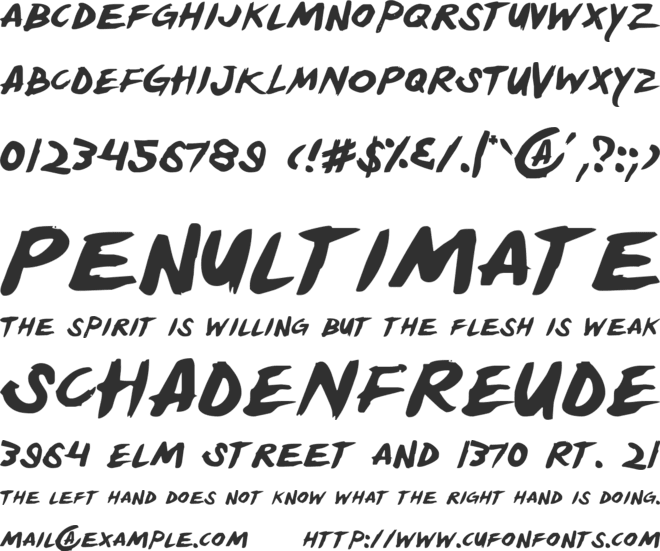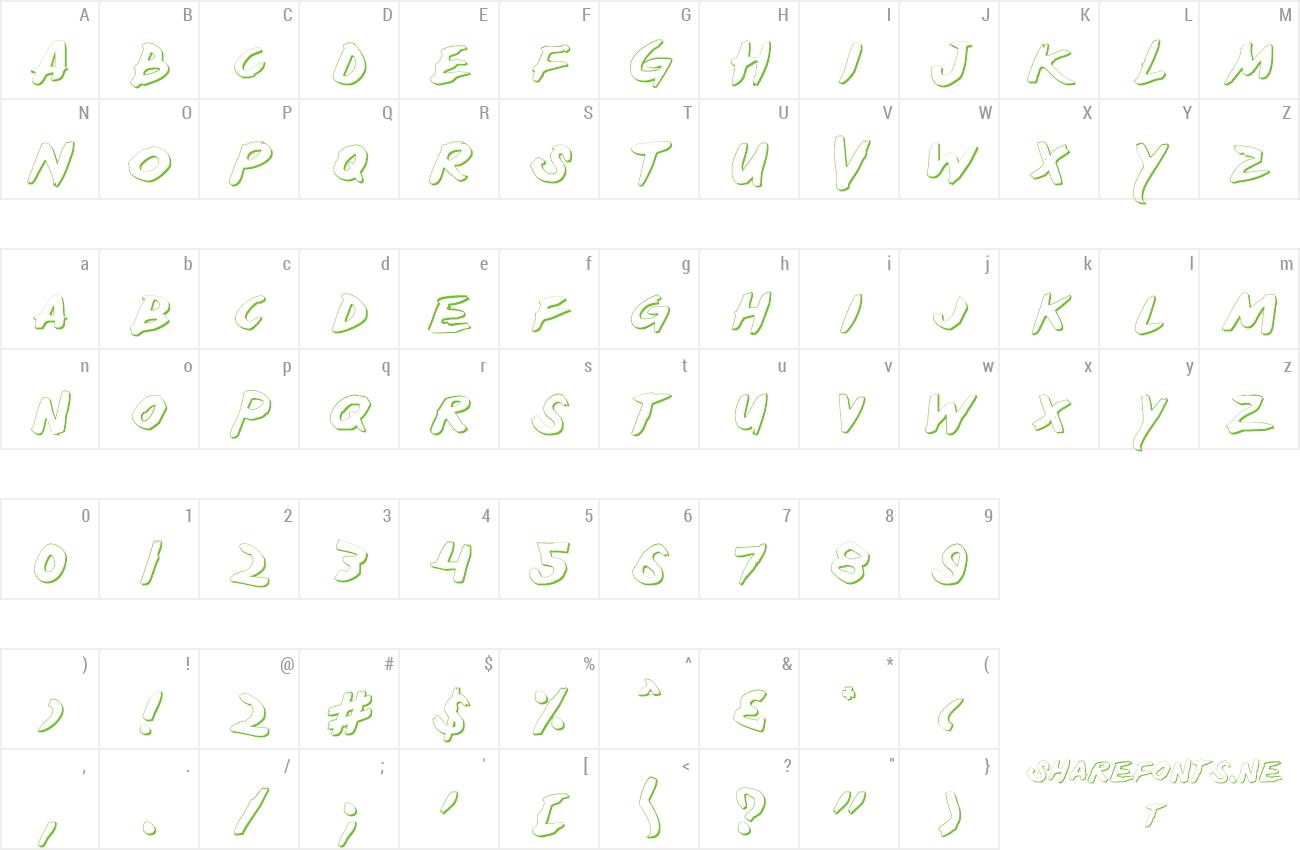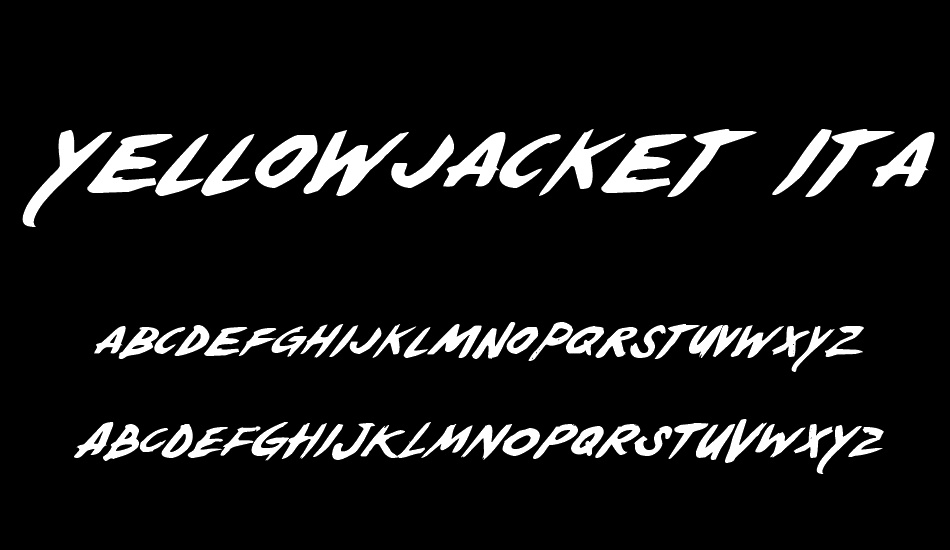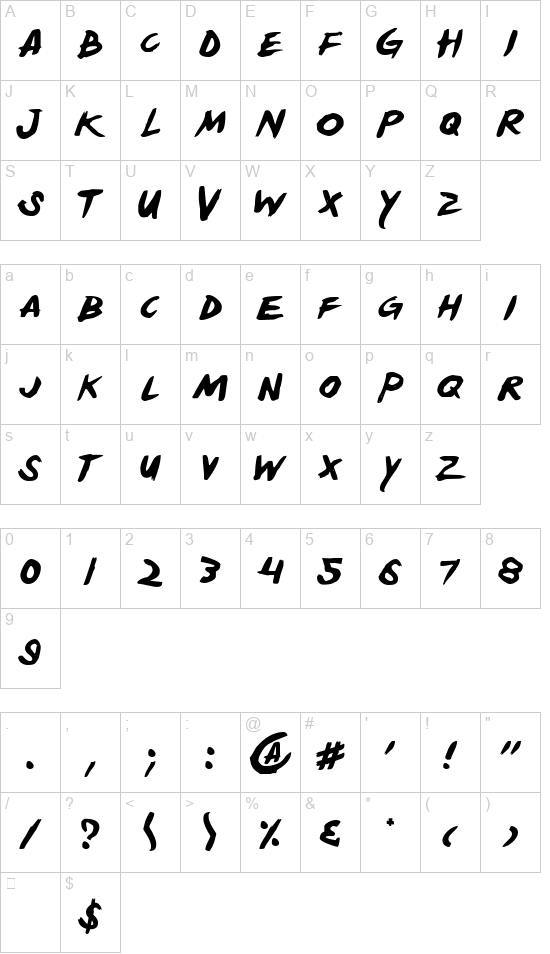
Yellow Jacket Font
Yellow Jacket Font - Web yellow jacket is a free font for personal use created by iconian fonts. Yellow jacket is a fancy type font that can be used on any.
Yellow jacket is a fancy type font that can be used on any. Web yellow jacket is a free font for personal use created by iconian fonts.
Web yellow jacket is a free font for personal use created by iconian fonts. Yellow jacket is a fancy type font that can be used on any.
Yellow Jacket Is A Fancy Type Font That Can Be Used On Any.
Web yellow jacket is a free font for personal use created by iconian fonts.